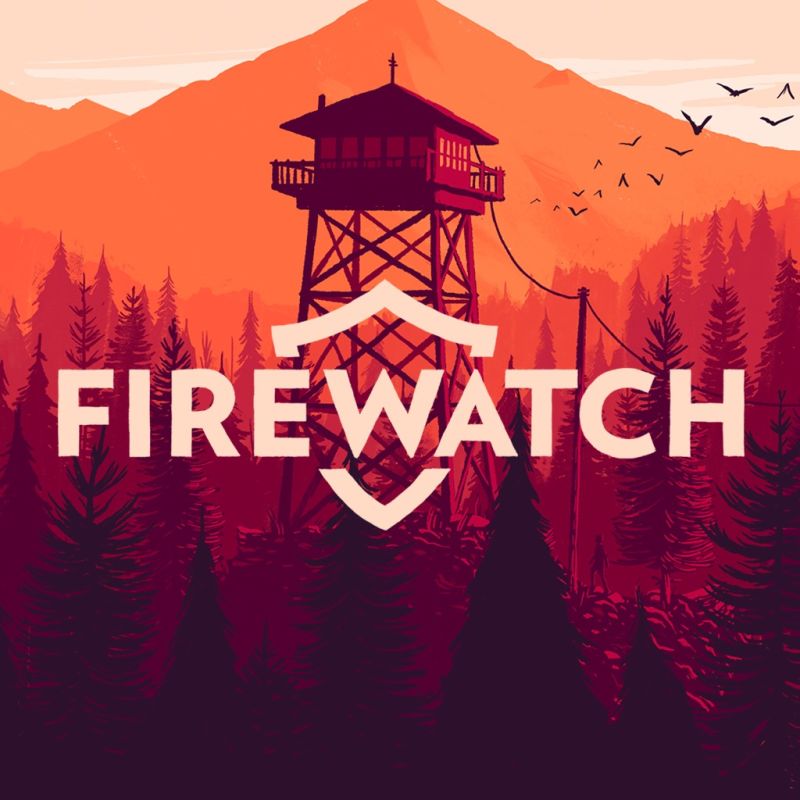
Firewatch Logo Font
Action & AdventureFirewatch is a single-player first-person mystery adventure game developed by Campo Santo and released in 2016. It is set in the Wyoming wilderness in 1989, where the player character, Henry, becomes a fire lookout for the summer.
The font used for the Fire Watch game logo in the box art is Verlag Black. Verlag is a sans serif typeface, inspired by Bauhaus geometric designs like Futura and Erbar. There are three widths available: regular for text, condensed for close quarters, and compressed for headlines.